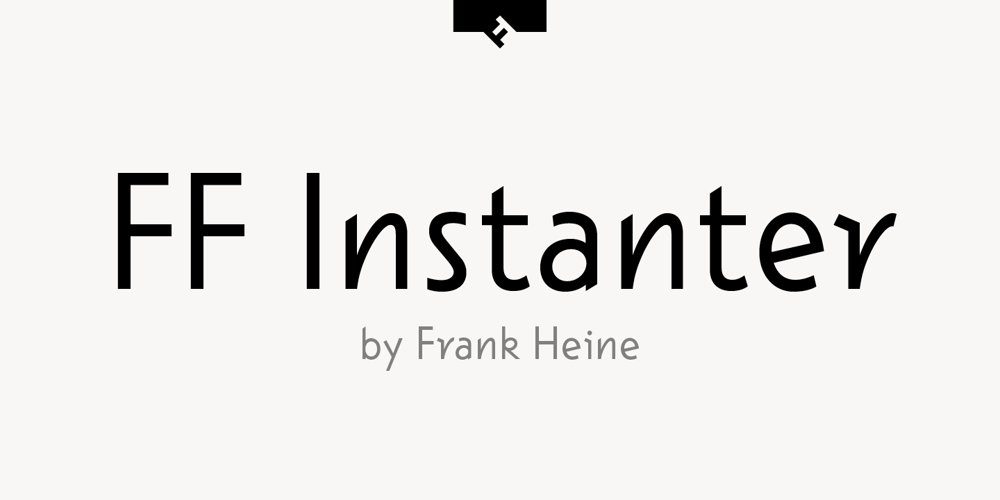
FF Instanter Font Family was designed by Frank Heine and published by FontFont. FF Instanter contains 2 styles and family package options. German type designer Frank Heine created this display FontFont in 1994. The family contains 2 weights: Light and Bold and is ideally suited for festive occasions, editorial and publishing, poster and billboards as well as software and gaming. FF Instanter provides advanced typographical support with features such as ligatures and case-sensitive forms. It comes with proportional lining and proportional oldstyle figures.